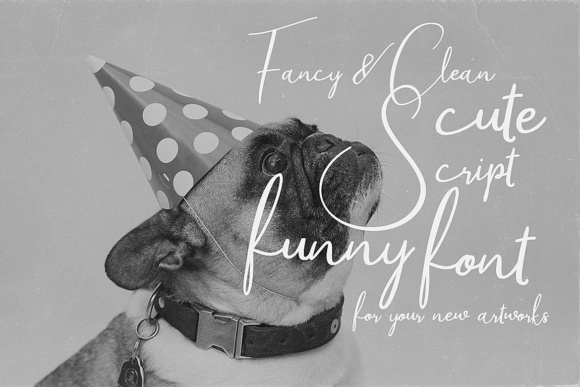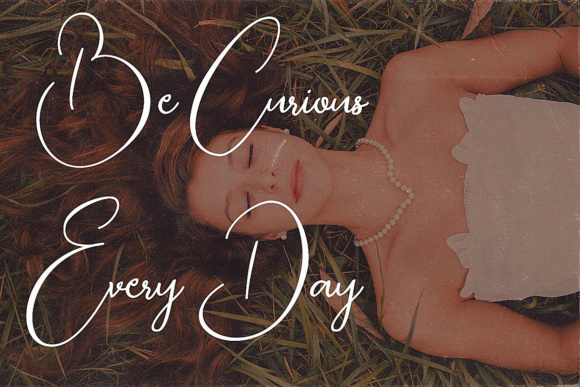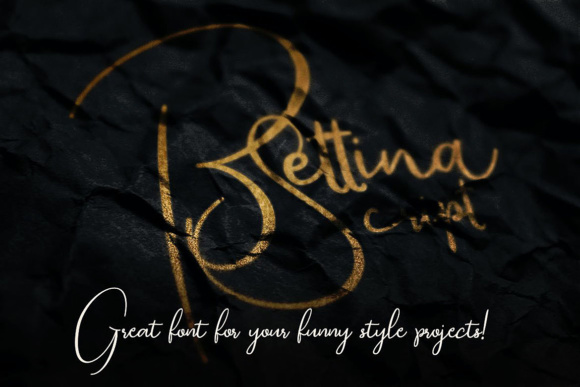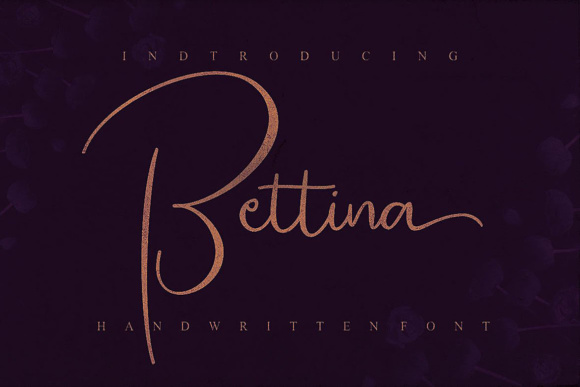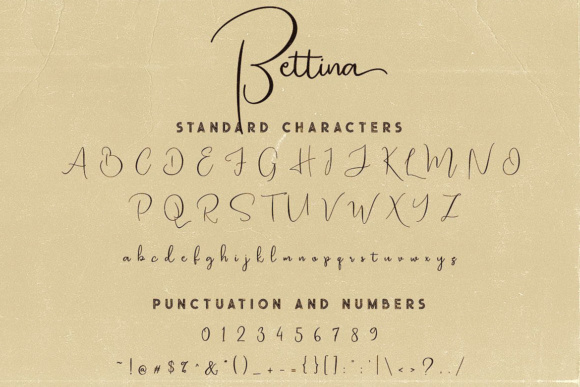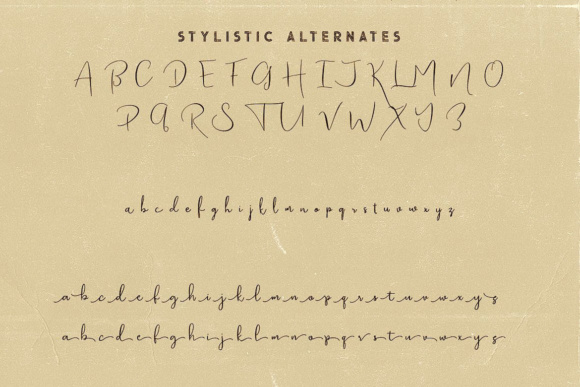
Bettina Script Font: Elevate Your Designs with Elegance and Sophistication
In the world of typography, a well-chosen font can make all the difference in elevating your design from ordinary to extraordinary. If you’re on the hunt for a font that exudes elegance, sophistication, and a touch of whimsy, look no further than the Bettina Script Font. This stunning script font is designed to make your designs stand out, whether you’re working on a logo, branding materials, invitations, or any other creative project.
What is Bettina Script Font?
Bettina Script is a clean and fancy script font that has been carefully crafted to provide a striking yet elegant look. Its unique blend of modern flair and classic charm makes it an incredibly versatile font, suitable for a wide range of design applications. With Bettina Script, you can add a touch of personality to your work, setting it apart from the crowd and capturing the attention of your audience.
Key Features of Bettina Script Font
• Clean and Elegant Design: Bettina Script boasts a clean and elegant design that is perfect for creating sophisticated and refined designs.
• Striking yet Elegant: The font’s striking appearance is balanced by its elegant feel, making it suitable for a wide range of design applications.
• Versatile: Bettina Script can be used for logos, branding materials, invitations, packaging, and any other design project that requires a touch of elegance and sophistication.
• Easy to Read: Despite its ornate appearance, Bettina Script is surprisingly easy to read, making it perfect for both headings and body text.
Uses of Bettina Script Font
Bettina Script Font is an incredibly versatile font that can be used in a variety of design applications. Here are some ideas to get you started:
• Logo Design: Create a stunning logo for your business or brand with Bettina Script Font.
• Branding Materials: Use Bettina Script to create elegant and sophisticated branding materials, such as business cards, letterheads, and brochures.
• Invitations: Add a touch of elegance to your invitations, whether it’s for a wedding, birthday party, or corporate event.
• Packaging: Use Bettina Script to create eye-catching packaging that stands out on store shelves.
• Digital Design: Bettina Script is also perfect for digital design, including social media graphics, website headers, and email newsletters.
Tips for Using Bettina Script Font
To get the most out of Bettina Script Font, here are some tips to keep in mind:
• Use it as a Headline Font: Bettina Script is perfect for headlines and titles, where its elegant and sophisticated appearance can really shine.
• Pair it with a Sans-Serif Font: For body text, pair Bettina Script with a clean sans-serif font to create a beautiful contrast.
• Experiment with Colors: Bettina Script looks stunning in a variety of colors, so don’t be afraid to experiment and find the perfect hue for your design.
• Play with Ligatures: Bettina Script features beautiful ligatures that can add an extra touch of elegance to your design.
In conclusion, Bettina Script Font is a stunning script font that is sure to elevate your designs to the next level. With its clean and elegant design, striking yet elegant appearance, and versatility, Bettina Script is perfect for a wide range of design applications. Whether you’re a designer, crafter, or DIY enthusiast, Bettina Script Font is a must-have in your font collection.